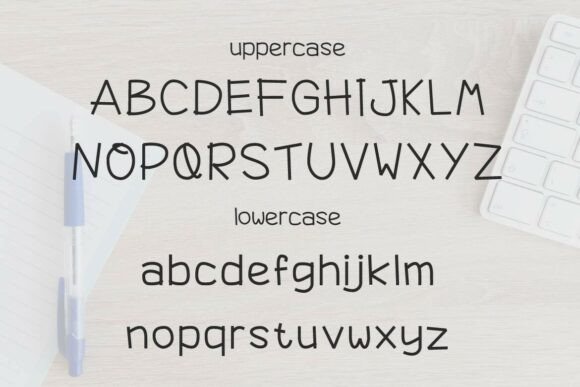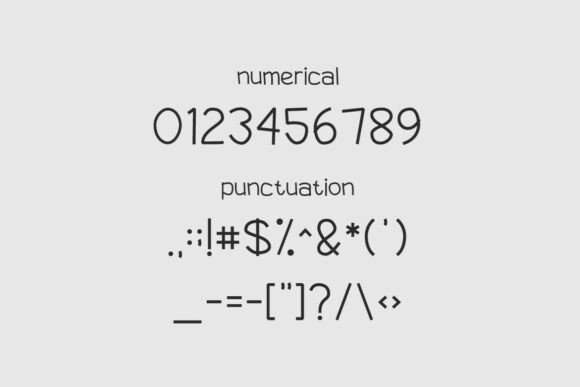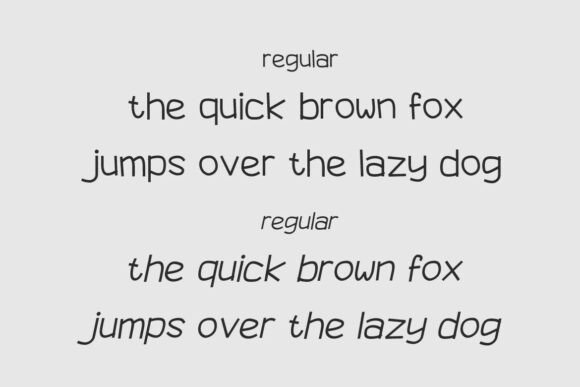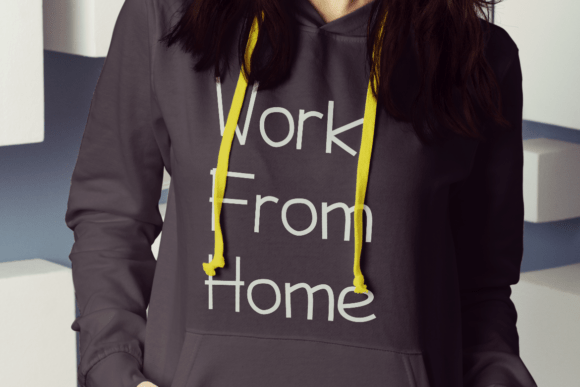
Introduction to Havanna Font
Have you ever been working on a creative project, pouring your heart and soul into it, only to find the perfect font is just out of reach? That’s where the magic of the Havanna Font comes in – a beautifully flowing handwritten font that captures the charm of natural handwriting with a modern, stylish twist.
Imagine being able to infuse your designs with a touch of personality and authenticity, without sacrificing high quality or versatility. With the Havanna Font, you can do just that. This design resource is perfect for branding, wedding designs, social media graphics, invitations, and lifestyle content, offering a transparent background and effortless chic vibe that’s sure to elevate your creative projects.
Key Features of Havanna Font
- Unique, elegant design ideal for creative projects requiring a sophisticated touch
- Supports multiple languages, making it a versatile design resource for global creative projects
- High-quality font files with clear, legible characters suitable for both on-screen and print use
Honest Review: Havanna Font
As a designer, I’m always on the lookout for unique and high-quality fonts to elevate my creative projects. The Havanna Font caught my attention, and I decided to give it a try.
Here are some of the things that I like about the Havanna Font:
- ✨ The font has a beautiful, elegant design that’s perfect for creative projects that require a touch of sophistication.
However, I do have some reservations about the Havanna Font:
- ⚠️ The font may not be suitable for projects that require a bold or playful look, as it has a more subtle and refined design.
- ⚠️ Some users may find the font difficult to read at small font sizes, which could be a limitation for certain design applications.
Overall, I think the Havanna Font is a great addition to any designer’s toolkit. While it may not be suitable for every project, it’s a high-quality font that can add a touch of elegance and sophistication to creative projects. With its transparent background and free download, it’s definitely worth checking out.
Havanna Font
Tips for Getting the Most Out of Havanna Font
Use Havanna Font for creative projects, such as logos, posters, and social media graphics. Experiment with different font sizes, colors, and transparency levels to achieve a unique look. Combine Havanna Font with other design resources, such as high-quality images and graphics, to create a visually appealing design.
Havanna Font is a versatile design resource that can be used in a variety of creative projects. Some common use cases include: